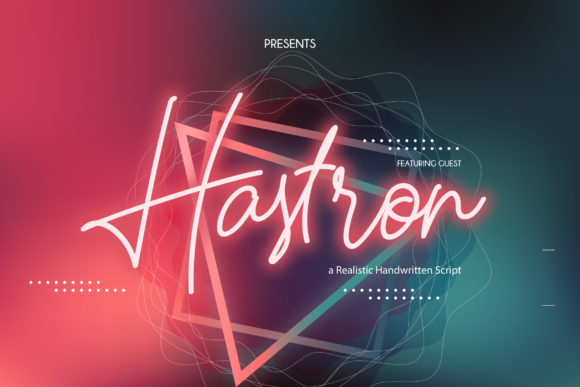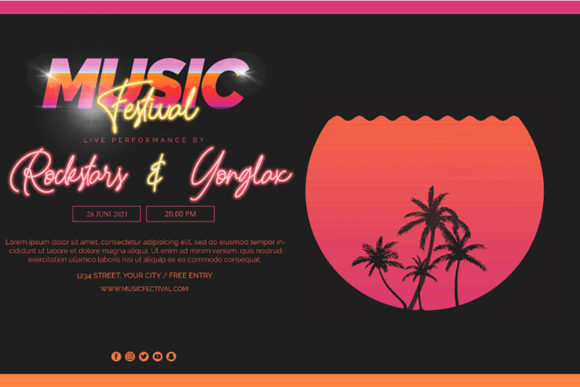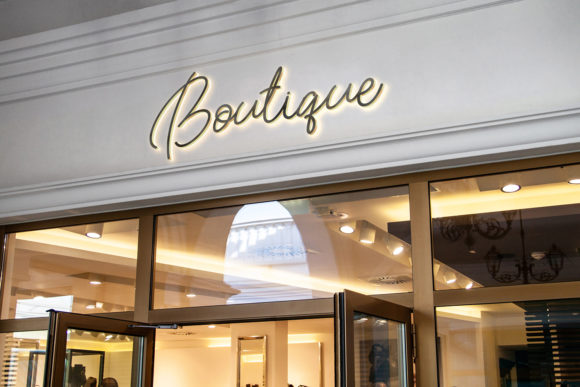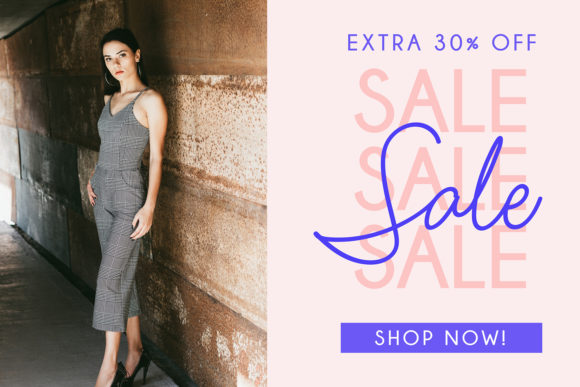
Hastron Font
About Hastron Font
Hastron is a realistic handwritten script that is perfect for a variety of design projects. Get inspired by its charming retro feel!